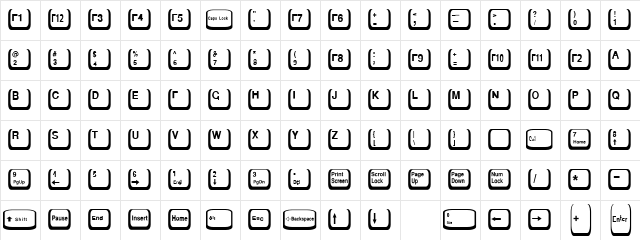
FZ DING 20 Normal Font Preview
FZ DING 20 Normal
Design Context for FZ DING 20 Typeface
FZ DING 20 is a composed and adaptable typeface that performs quietly and consistently across a wide range of design contexts.